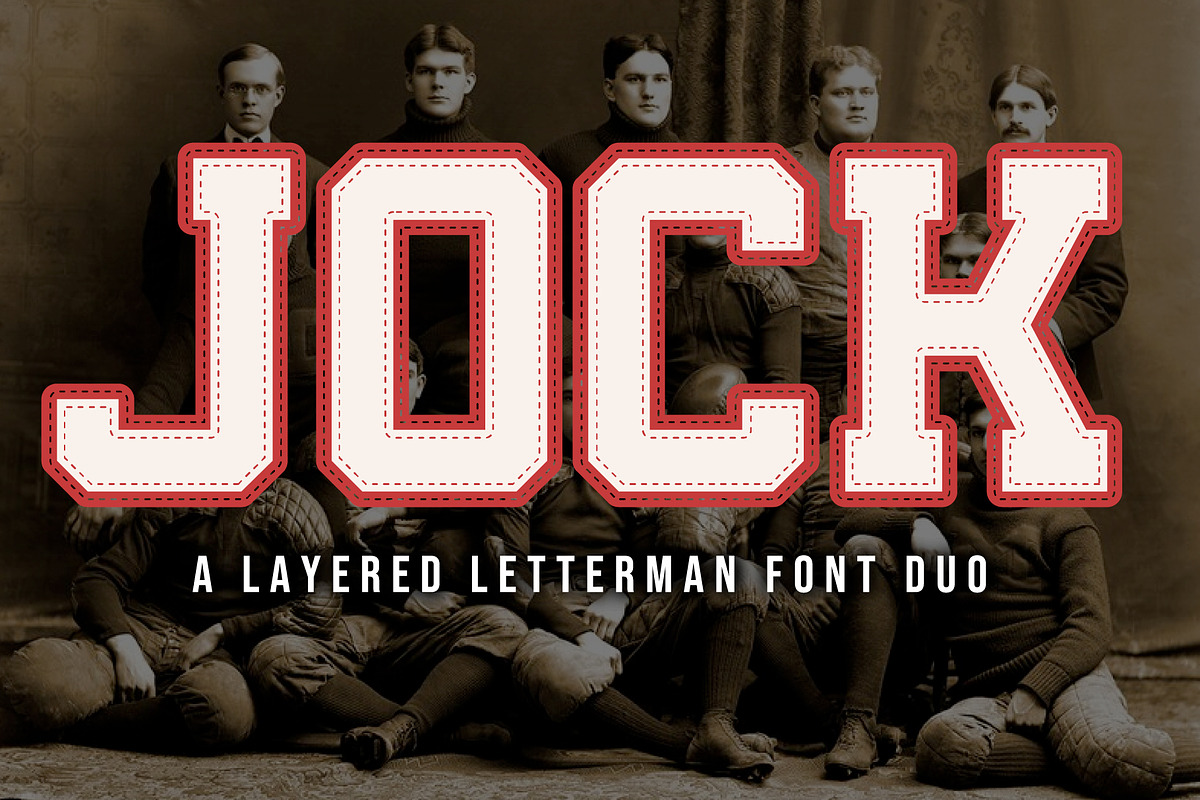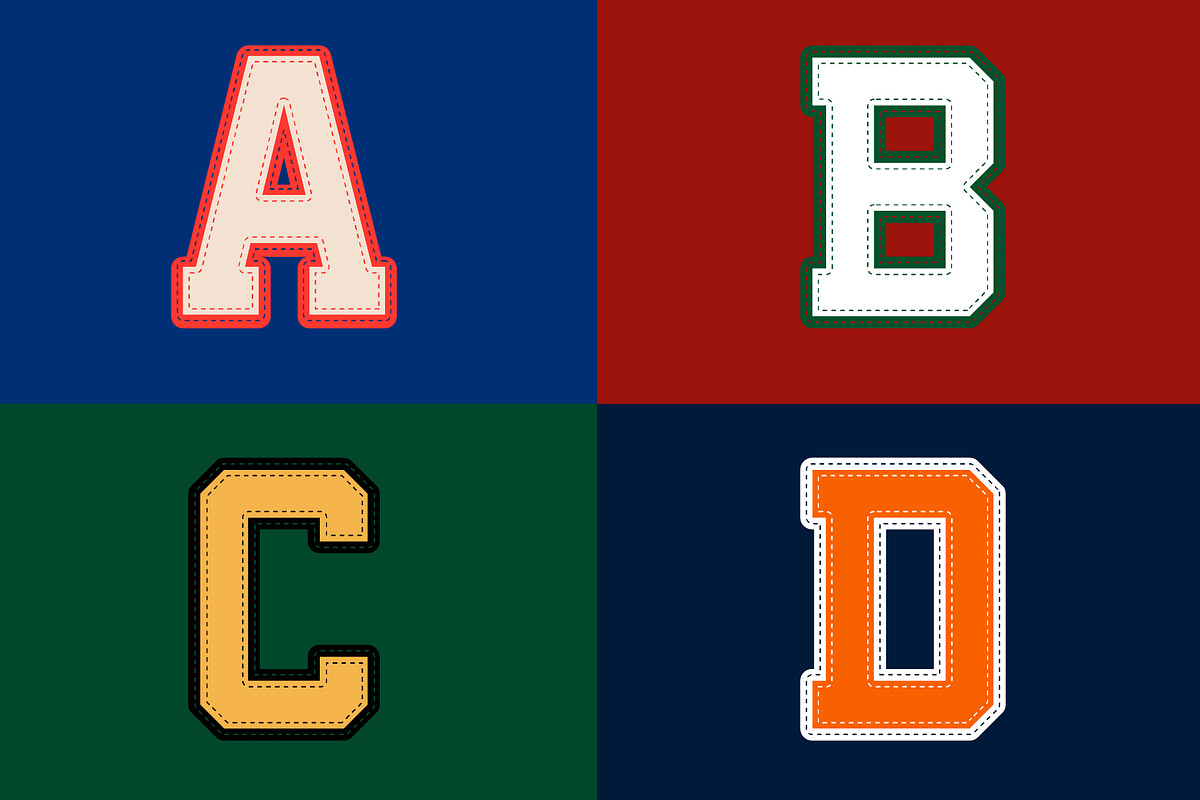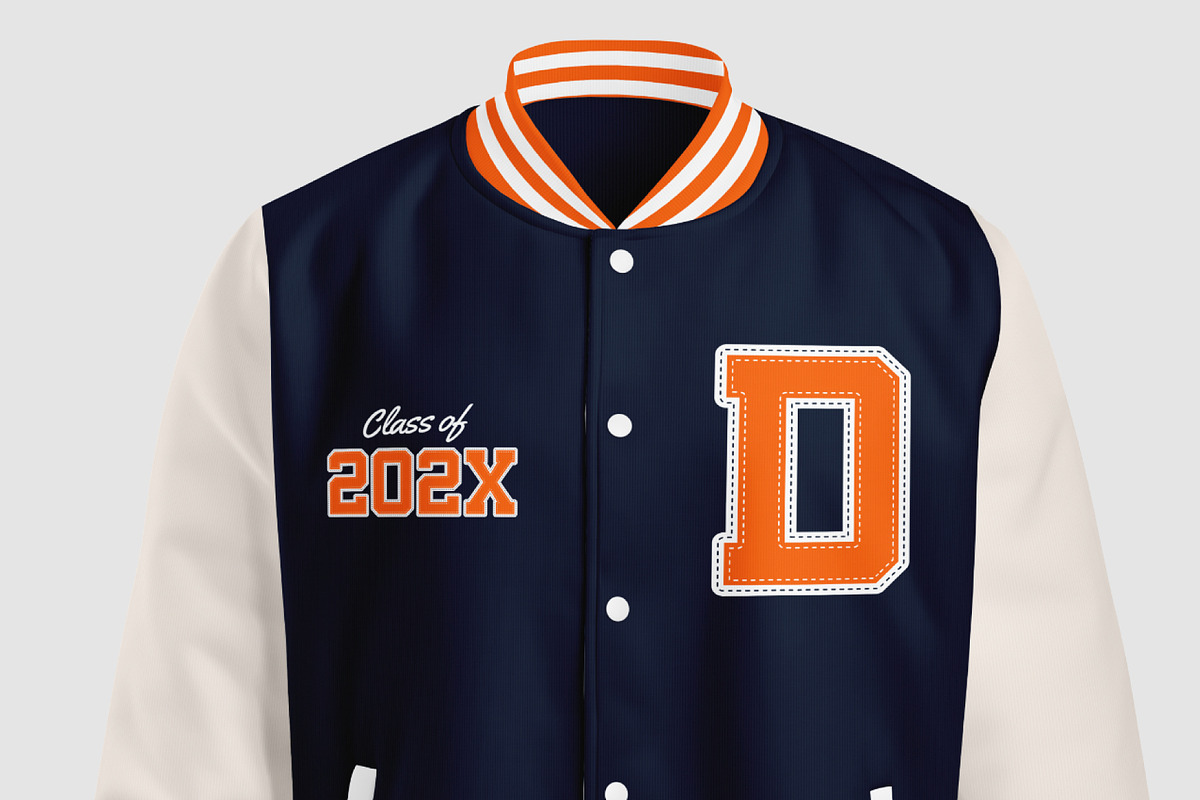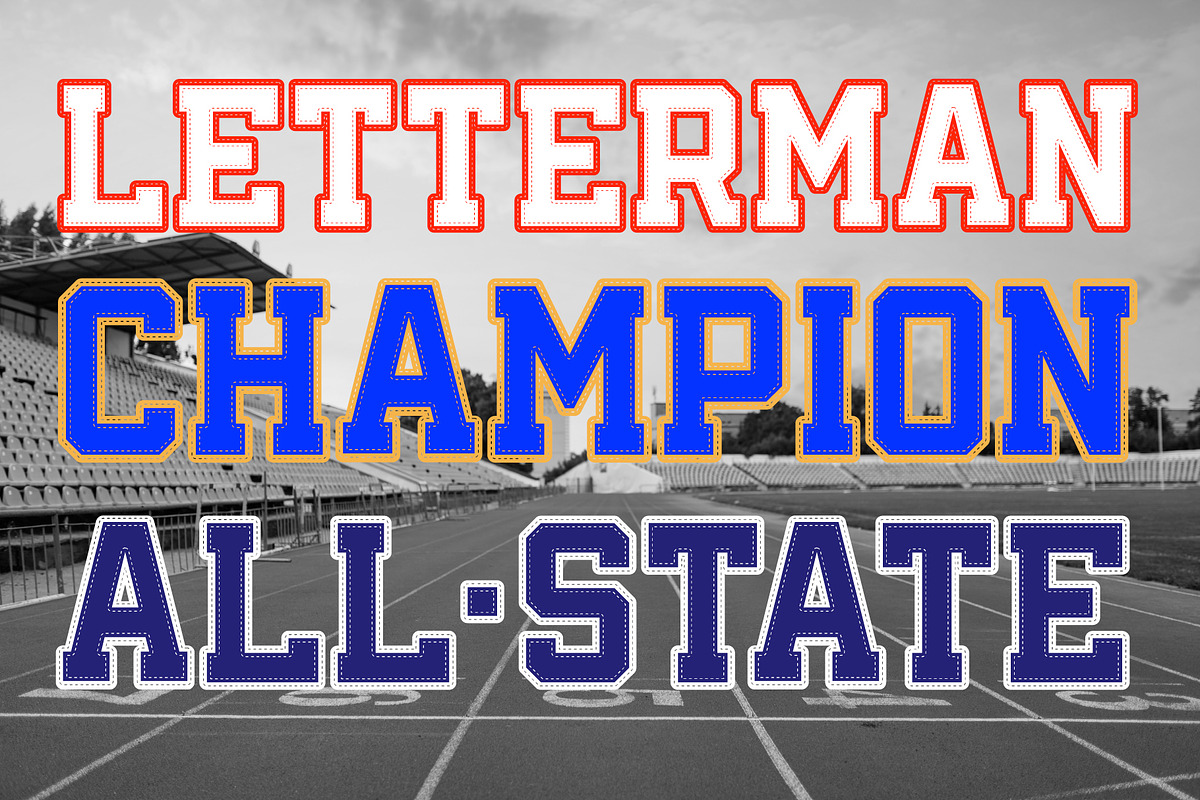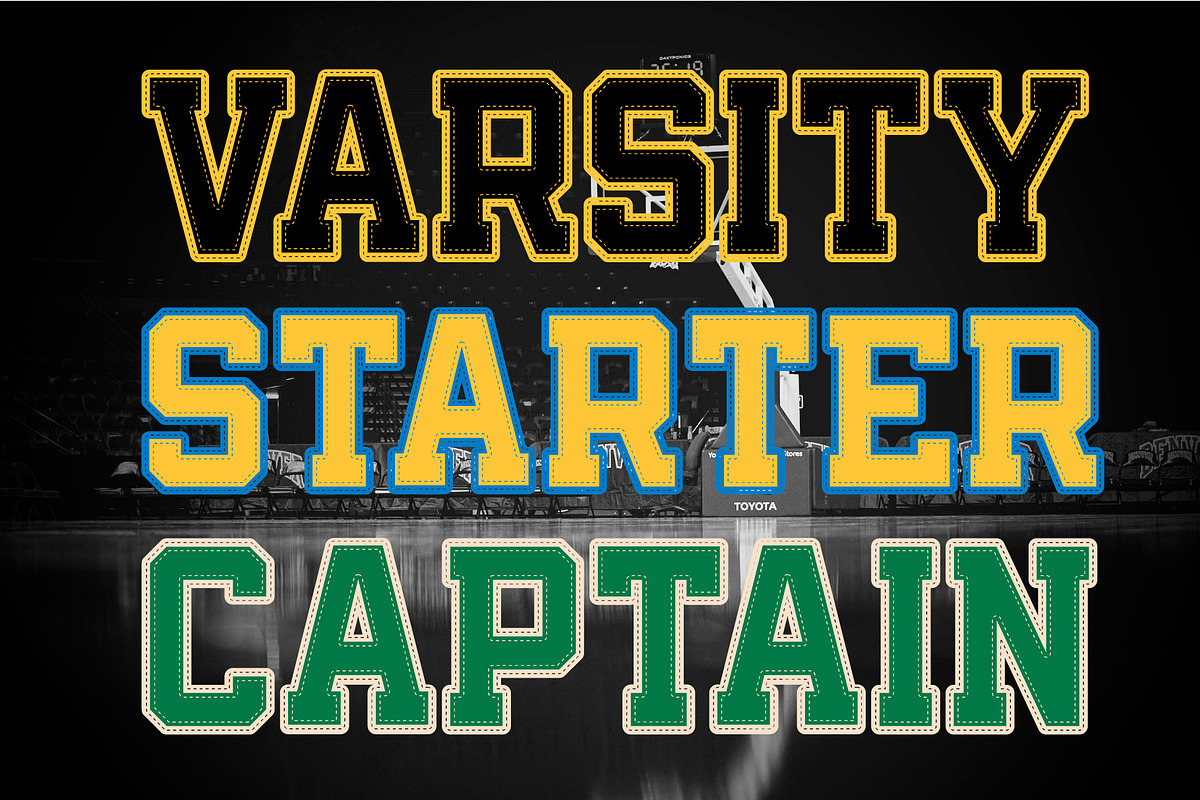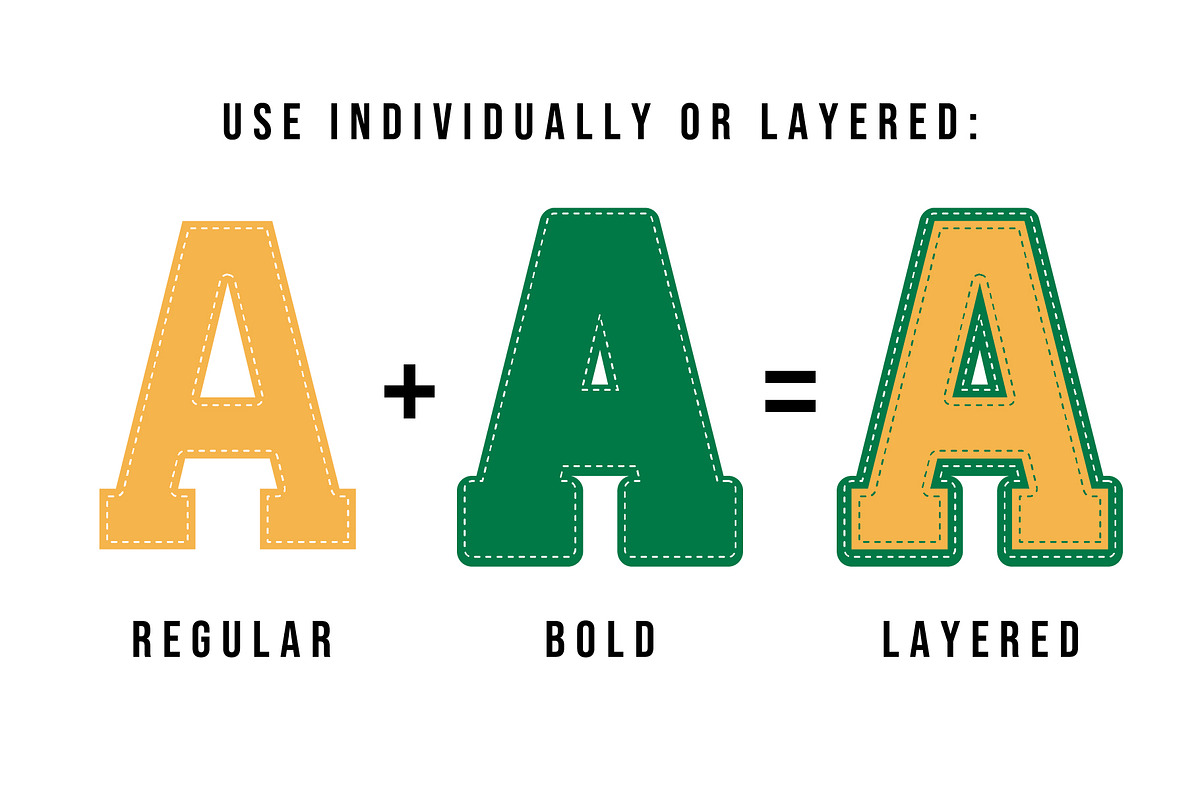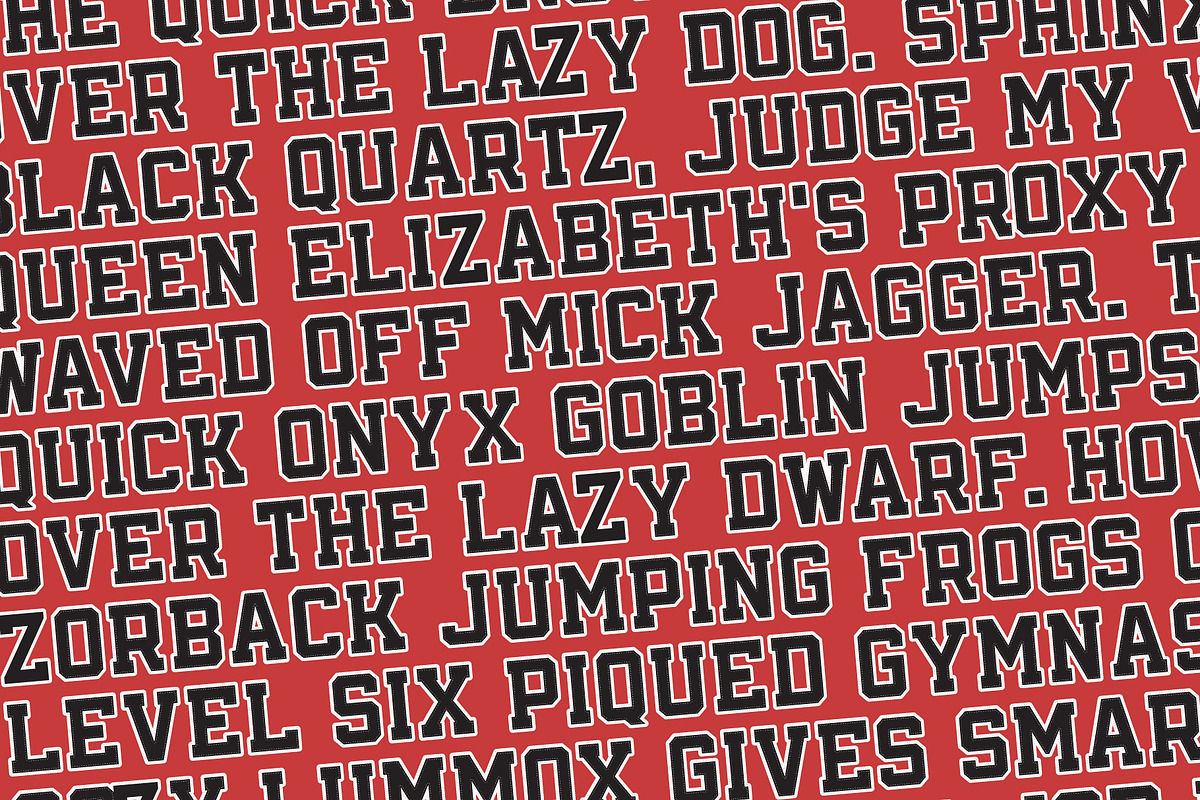
JOCK – The Classic Letterman Font
Bring that all-American varsity vibe to your designs with JOCK, a bold letterman font inspired by the iconic style of letterman jackets. Perfect for sports branding, school merch, posters, and retro-inspired designs, JOCK gives you everything you need to create standout typography with ease.
2 Font Styles: Regular and Bold – use them individually or layer them for a stitched, varsity look.
Uppercase Alphabet & Numbers – Complete with classic letterman-style characters.
Athletic-Inspired Words: Perfect for VARSITY, CAPTAIN, CHAMPION, and ALL-STATE designs.
Easy Layering: Stack Regular and Bold for custom effects.
Instantly captures that nostalgic sports vibe.
Perfect for apparel, posters, and branding.
Built for both print and digital projects.
🏆 Make your designs varsity-level with JOCK!